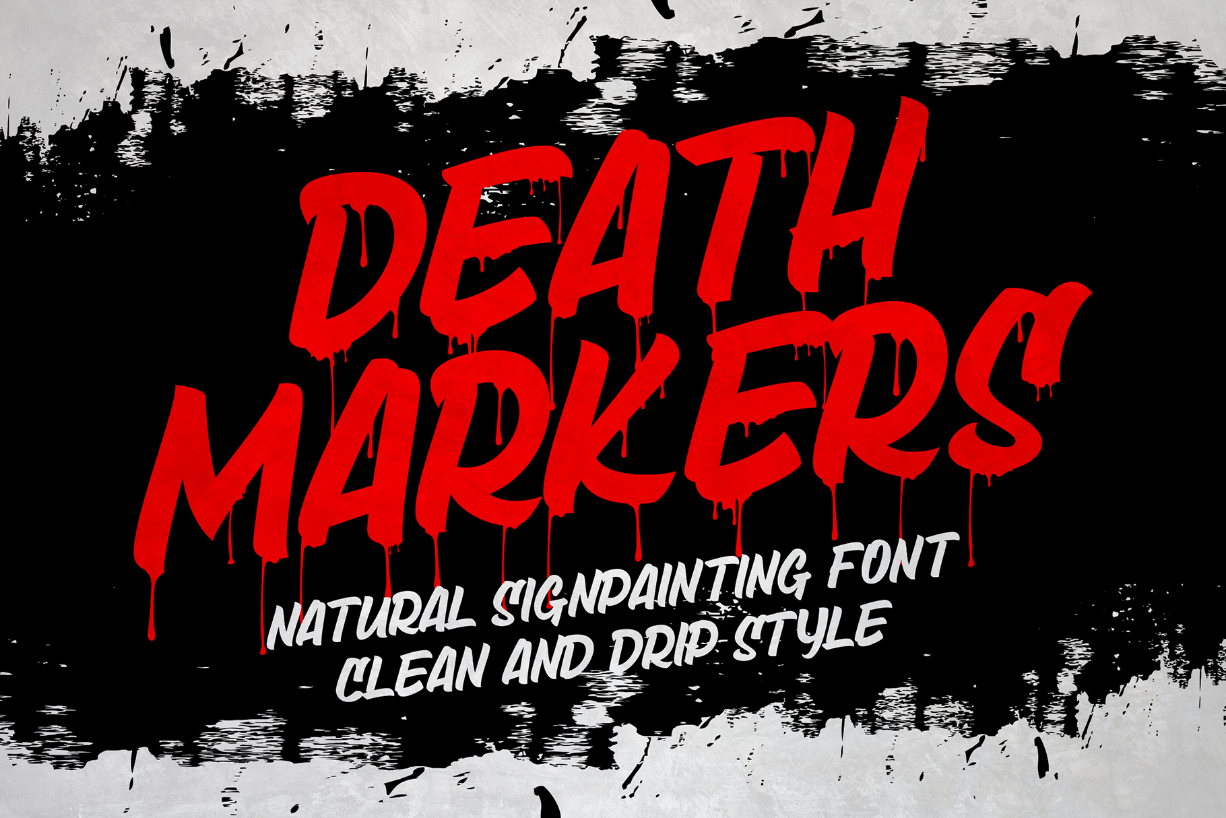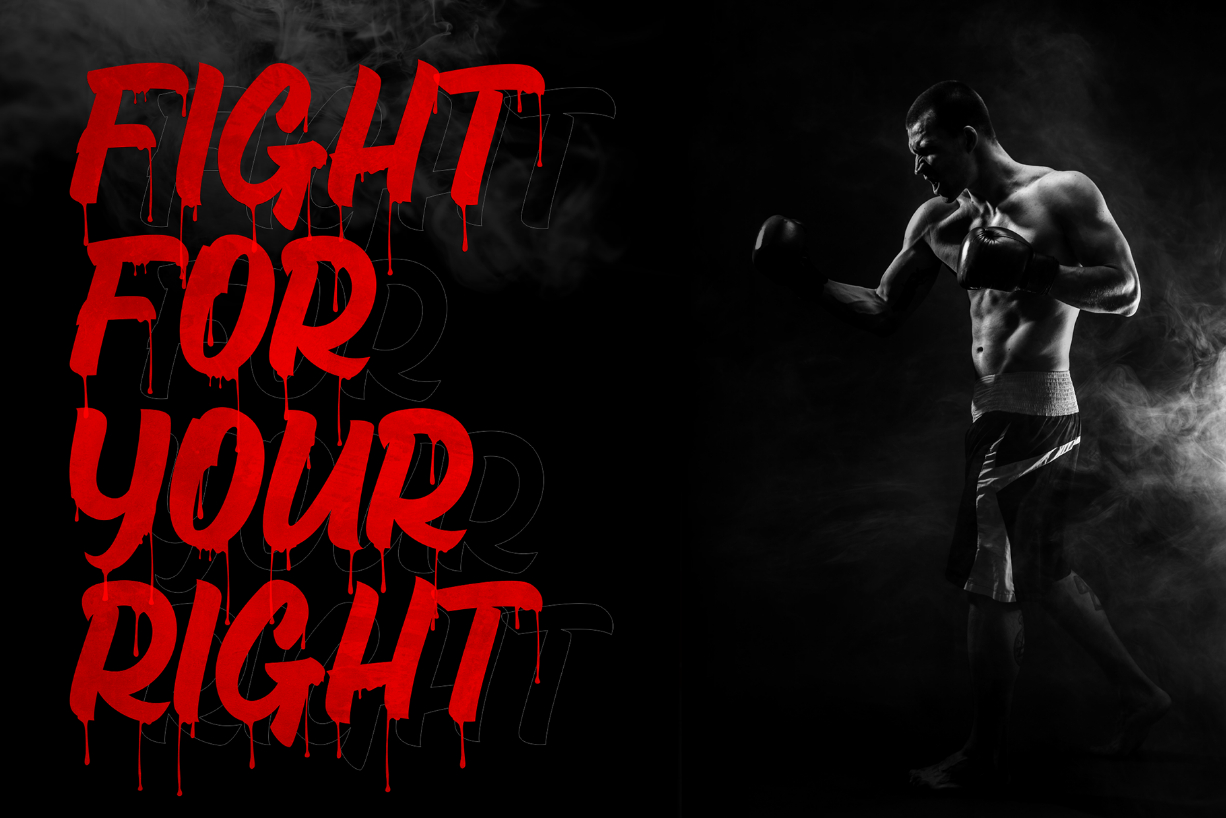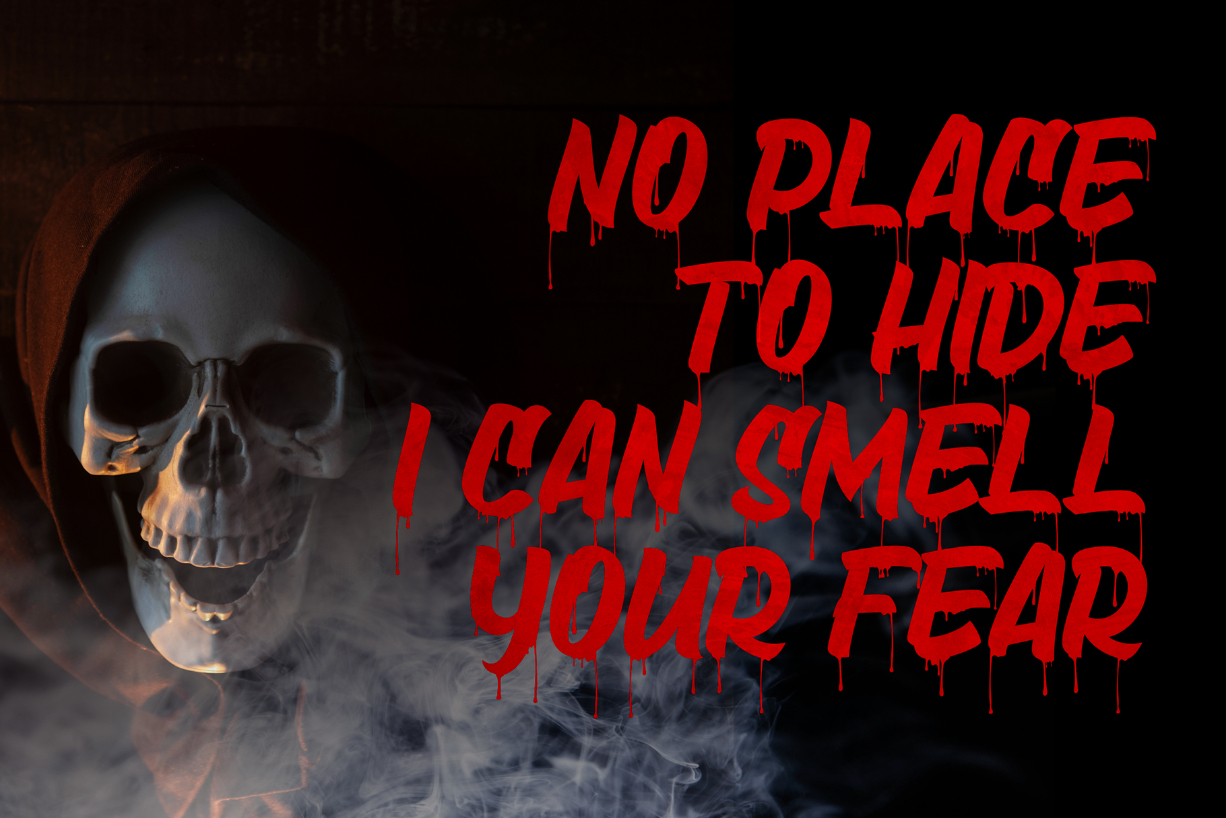
About Death Markers Font
Death Markers is a natural brush font, inspired by vintage sign painting. It will look great on any Halloween or Horror-themed project.